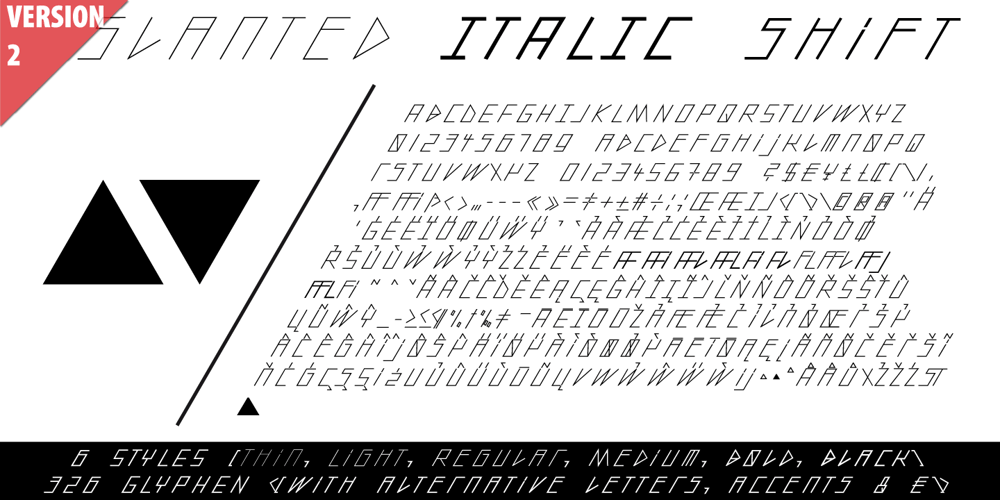
Slanted ITALIC Shift Font Family was designed by Manuel Viergutz and published by TypoGraphicDesign. Slanted ITALIC Shift contains 7 styles and family package options. CONCEPT/CHARACTERISTICS The constructed, clear and modern character of the typeface based on the basic form of the triangle. The motto is geometrically and italic. APPLICATION AREA The modern, futuristic and constructed font „slanted ITALIC shift“ would look good at display size for poster, flyer, comics and graphic novel lettering and logos. Headlines in magazines or websites, packaging, music covers or webbanner etc. TECHNICAL SPECIFICATIONS Headline Font | Display Font | Geometric Font „slanted ITALIC shift“ OpenType Font with & 308 glyphs & 6 styles (thin, light, regular, medium, bold, black). Alternative letters, symbols and ligatures (with accents & €) FONT IN USE www.typographicdesign.de/font-in-use-slanted-italic-shift/